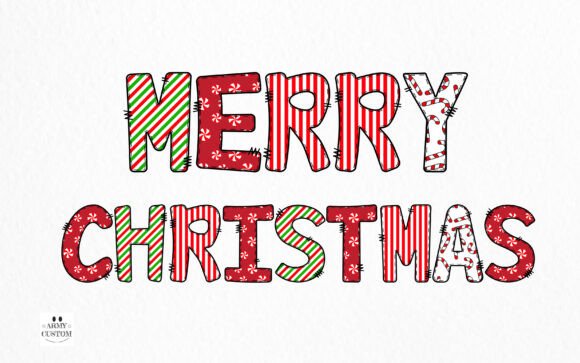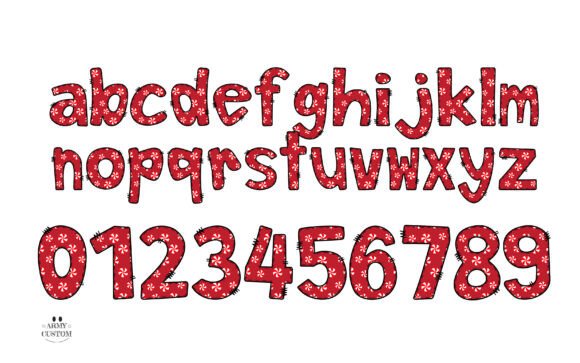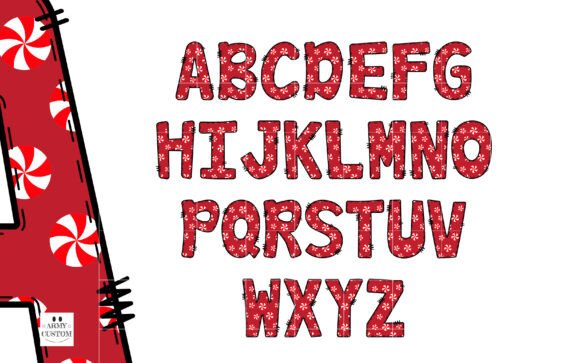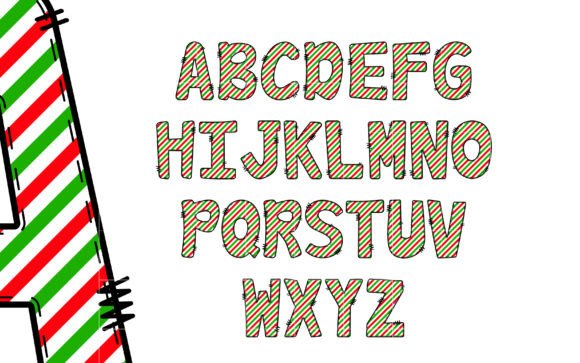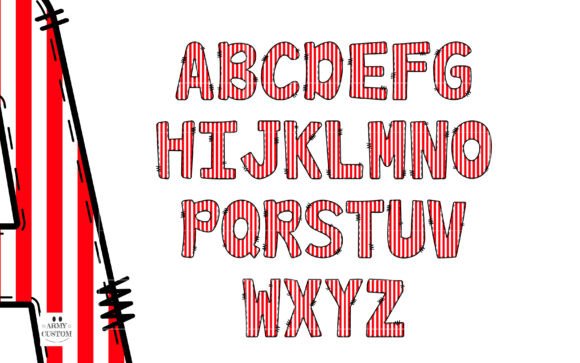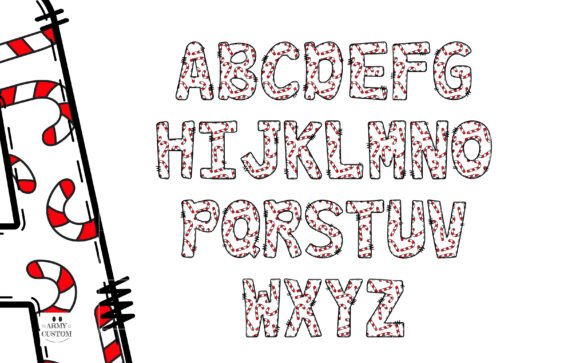
Deck the Halls with Cheer: Introducing the Christmas Candy Bundle Font
As you sit down to craft the perfect holiday card or design festive digital content, the pressure to get creative can be overwhelming. But what if you had a secret ingredient to add that extra sprinkle of magic to your designs? Enter the Christmas Candy Bundle Font, a delightful, hand-drawn font that wraps your messages in playful red and green stripes, perfect for evoking that warm and merry feeling of the season.
This charming font is more than just a pretty face – it’s a valuable tool for designers looking to add a personal touch to their holiday creations. With a full upper and lowercase set, numbers, and compatibility with select software, the Christmas Candy Bundle Font is the perfect addition to any designer’s toolkit. Whether you’re crafting tags for gifts or creating digital content, this font adds a sweet and cheerful flair that’s sure to make your holiday messages stand out.
Christmas Candy Bundle Font Key Features
- Unique Characteristics: A festive and playful design, featuring a bundle of colorful candies, perfect for holiday-themed projects.
- Font Style: A fun, handwritten font with a touch of whimsy, ideal for titles, headings, and decorative text.
Designer Review: Christmas Candy Bundle Font
Overall, I think the Christmas Candy Bundle Font has a lot of potential for a festive and playful design. Here’s what works well: ✨ It has a nice balance of whimsy and sophistication, which makes it suitable for a variety of holiday-themed projects. The font is also highly customizable, allowing you to adjust the size, color, and spacing to suit your design needs. Additionally, the font includes a range of ornaments and icons that can be used to add an extra layer of visual interest to your designs.
However, there are a few limitations to consider: ⚠️ The font is not suitable for body text, as it can be difficult to read at smaller font sizes. Additionally, some of the ornaments and icons may not be compatible with all devices or browsers. It’s also worth noting that the font is not available for commercial use without a license, which may be a limitation for some designers.
Overall, I would recommend the Christmas Candy Bundle Font for designers who are looking to add a touch of holiday cheer to their designs. While it may have some limitations, it’s a great choice for titles, headings, and other design elements where you want to make a statement.
- Includes ornaments and icons
- Suitable for titles and headings
- Not suitable for body text
The Christmas Candy Bundle Font is perfect for creating festive and fun designs, such as:
- Holiday cards and invitations
- Party decorations and signage
- Christmas-themed social media graphics
- Gift tags and labels
For the best results, use the font in bold and playful combinations with other festive graphics and colors.